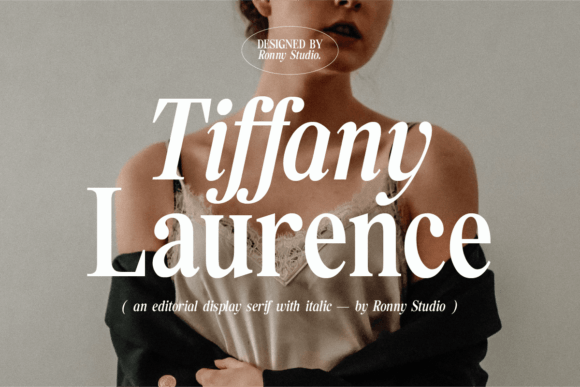
Introducing Tiffany Laurence Serif, a retro-chic font that oozes elegance and sophistication. Inspired by the golden era of magazine publishing, this font is a true gem for designers and creatives seeking a touch of vintage glamour.
With its bold and striking serifs, Tiffany Laurence Serif exudes a sense of timeless style. This font is a perfect choice for book publishing, capturing the essence of classic literature and bringing your words to life. Its meticulously crafted curves and sharp lines lend an air of luxury and distinction, making it ideal for creating stunning book covers, captivating posters, and eye-catching branding materials.
Step into the world of Tiffany Laurence Serif and let your creativity soar. This versatile font lends itself effortlessly to a wide range of design projects, from elegant invitations and wedding stationery to fashion magazines and beauty packaging. Its playful yet refined character adds a touch of whimsy to logos, labels, and social media graphics, ensuring your brand stands out from the crowd.
Unleash the power of Tiffany Laurence Serif and transport your audience to a bygone era of sophistication and style. Its PUA encoding grants you access to a treasure trove of stunning glyphs and ligatures, allowing you to effortlessly add intricate details and flourishes to your designs.
Experience the allure of Tiffany Laurence Serif and elevate your creative vision to new heights. This font is a must-have for those seeking a touch of classic elegance in their designs. Download now and embark on a journey of timeless beauty and artistic expression.